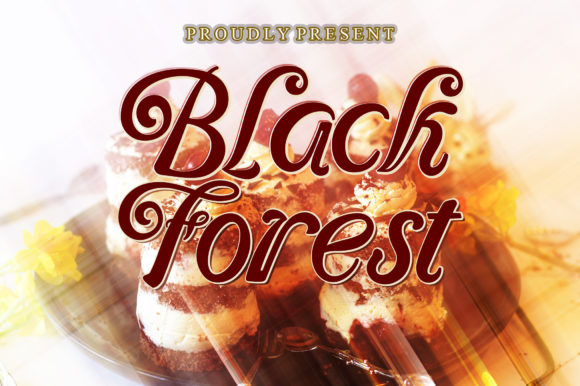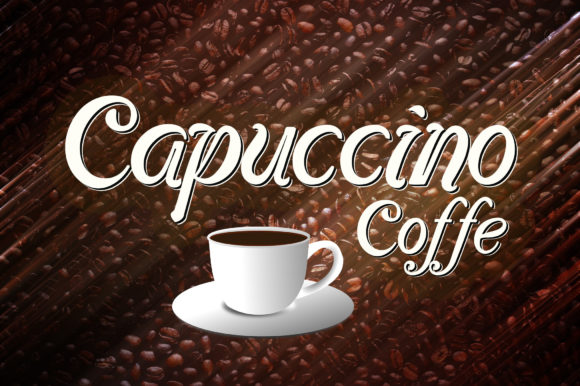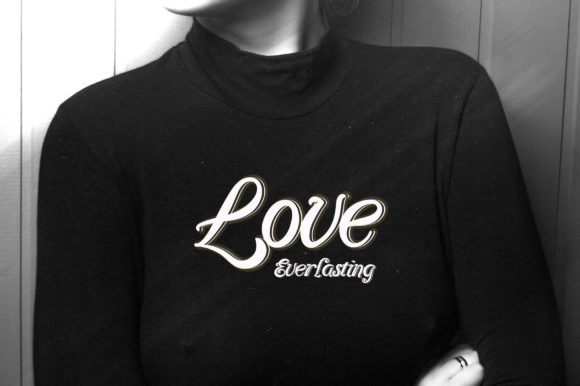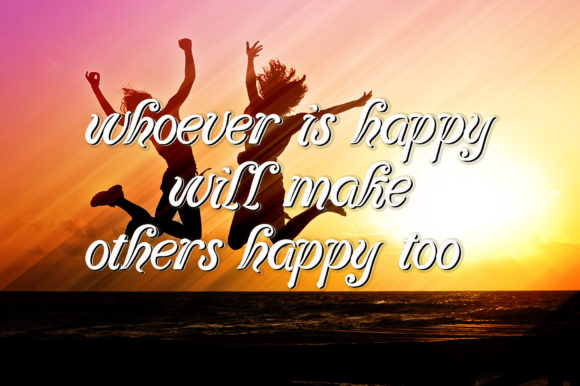
Black Forest Font
About Black Forest Font
“Black Forest” presents itself as a delicate and fashionable script font. With its refined charm, this font becomes a fitting choice for various branding projects, including logos, t-shirt printing, creative products, and more. Its ability to stand out and make a statement in diverse design contexts makes it a versatile asset.
The allure of “Black Forest” lies in its ability to convey a sense of delicacy and style. Its intricate design elements and elegant curves contribute to an aesthetic that exudes sophistication and visual appeal. This font holds the potential to elevate any project it graces.
Whether you’re crafting logos that require a touch of elegance, designing t-shirt prints that demand creativity, or creating branding materials that need a distinctive flair, “Black Forest” becomes a valuable tool. Its fashionable appearance can add a layer of refinement and allure to your projects.
Incorporating “Black Forest” into your design projects means embracing its delicate and fashionable attributes. By leveraging its unique charm, you’re enhancing the visual allure of your work and ensuring that your designs resonate effectively with your intended audience. This font becomes an essential asset in your design toolkit, capable of infusing your creations with sophistication and style.